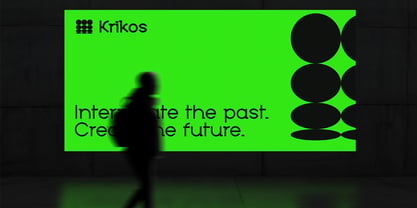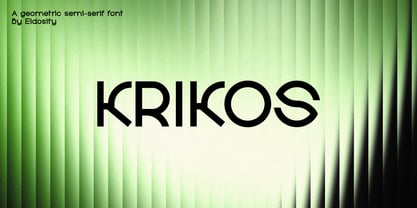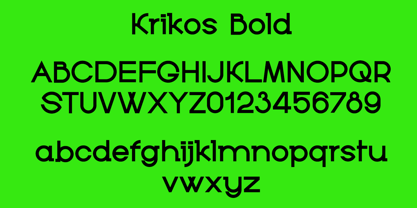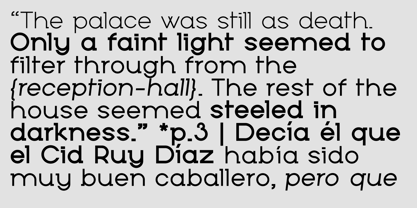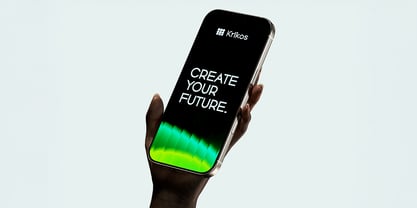
Krikos
by Eidosity
The Krikos Font Family was designed by Olivia Mcneilis and published by Eidosity. Krikos contains 4 styles and family package options. More about this family
It all started with an O. Krikos is a semi-serif font inspired by the geometric typefaces like Kabel. Each character follows the form of three different size rings, either in whole or part, from which the font gets its name (with krikos meaning ‘hoop’ or ‘ring’). The result is some strikingly quirky characters, particularly in the arm of the K and leg of the R. This roundness is grounded with almost slab serif details in the lowercase characters, creating visual tension and interest.
Designers: Olivia Mcneilis
Current Foundry: Eidosity